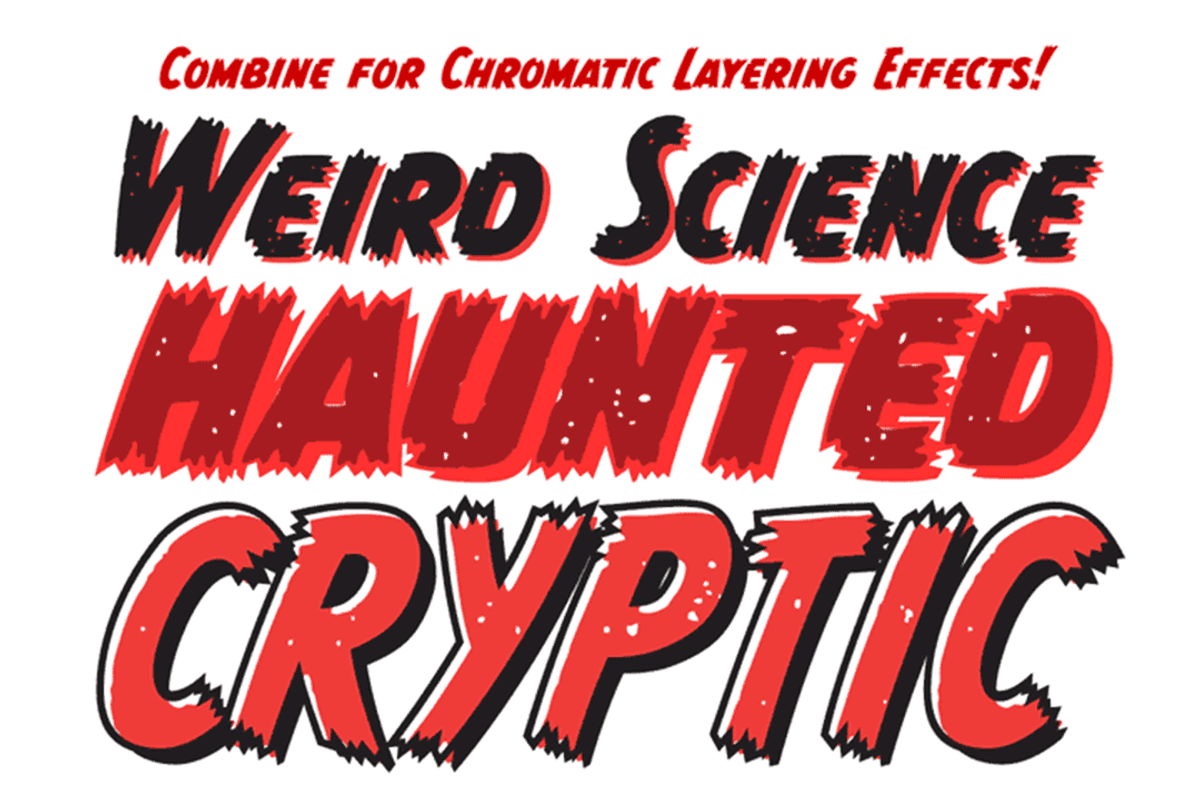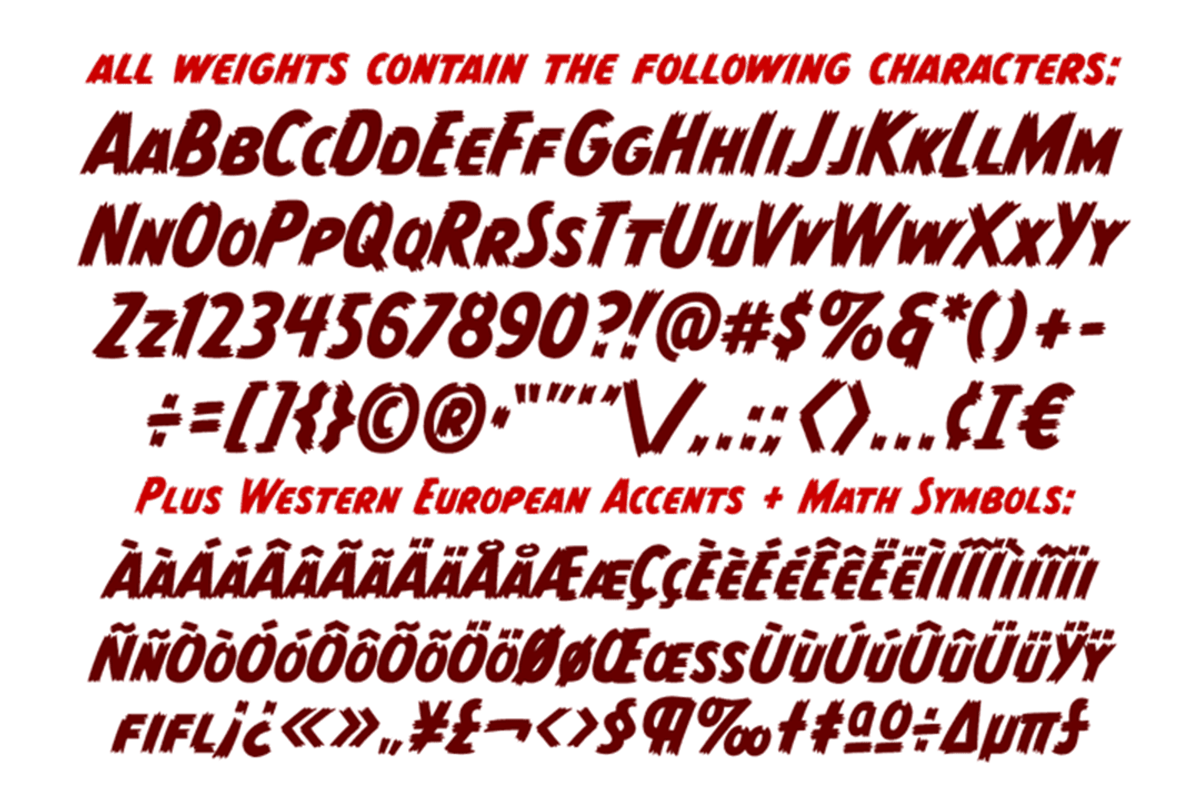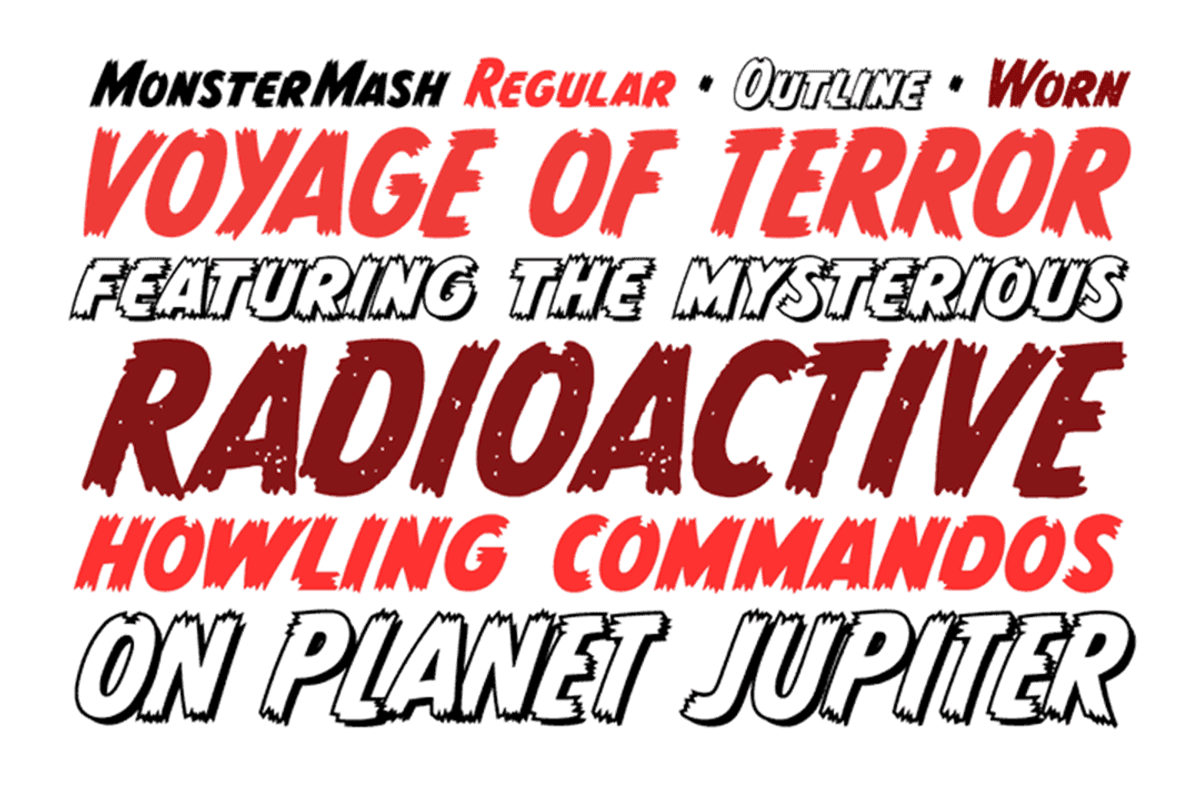
Monster Mash - a ragged comic font
Monster Mash - a ragged comic font by Comicraft Fonts is a font selected for branding, posters, packaging, typography.
Why Monster Mash - a ragged comic font is worth a look
Monster Mash - a ragged comic font by Comicraft Fonts fits naturally into Branding, posters, packaging, typography.